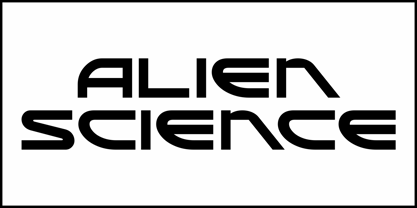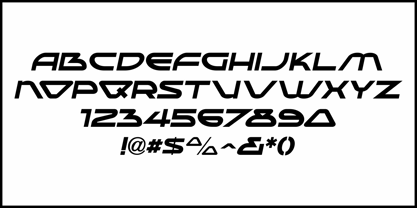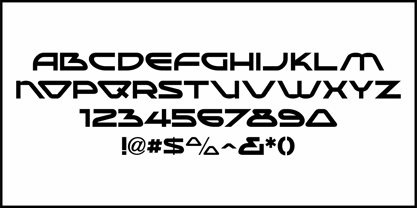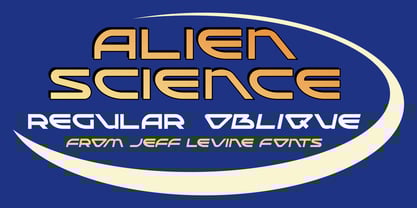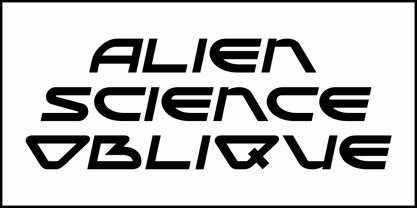
Alien Science JNL
von Jeff Levine
Die Schriftfamilie Alien Science JNL wurde von Jeff Levine entworfen und von Jeff Levine veröffentlicht. Alien Science JNL enthält 2 Stile und Familienpaketoptionen.
A mid-century ad for the women's fashion line Casino Classics featured sans serif hand lettering with a distinctively futuristic style that foresaw the techno font designs of the 1970s and 1980s.
Wide and angular, this typeface effectively conjures up images of space travel, computer sciences and alien encounters.
Now available as Alien Science JNL, it is offered in both regular and oblique versions.